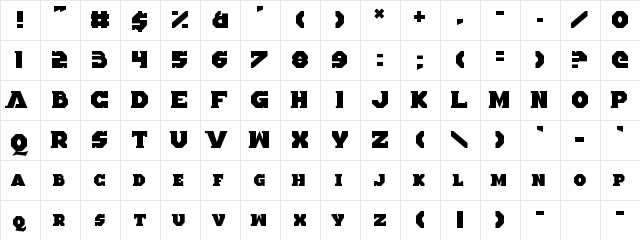
Altered Quest Regular
| Designer | AM |
Design Context for Altered Quest Typeface
Altered Quest is a composed and adaptable typeface that performs quietly and consistently across a wide range of design contexts.